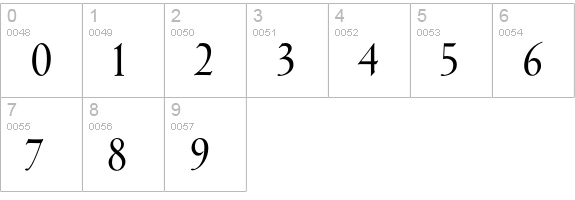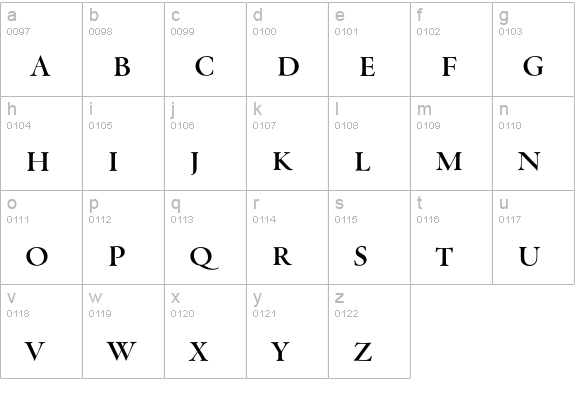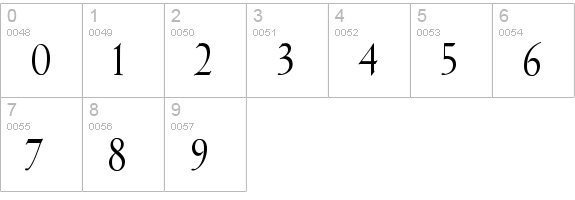
ThrohandInk-RomanExpert Font Details
Introducing ThrohandInk-RomanExpert, a truly unique and captivating font that will add a touch of elegance and sophistication to any design project. With its exquisite detailing and impeccable craftsmanship, this font exudes a sense of timeless beauty and grace. ThrohandInk-RomanExpert is the perfect choice for those seeking a classic yet contemporary font that effortlessly combines traditional Roman lettering with a modern twist. Its fluid strokes and gentle curves create a sense of movement, making each character come to life on the page. What sets ThrohandInk-RomanExpert apart from other fonts is its impeccable attention to detail. Every stroke is meticulously crafted, resulting in a font that is both visually stunning and highly readable. Whether used for headings, body text, or even logos, this font will make a lasting impression on anyone who encounters it. One of the most remarkable aspects of ThrohandInk-RomanExpert is that it is freely available to download at FontsMarket.com. This means that designers and creatives alike can enjoy the beauty and versatility of this font without any cost. It's a truly remarkable offer, as finding a font of this caliber for free is a rarity in the design world. So why wait? Enhance your design projects with the elegance and sophistication of ThrohandInk-RomanExpert. Download it now from FontsMarket.com and let your creativity soar to new heights. Whether you're working on a branding campaign, a wedding invitation, or a book cover, this font will elevate your work to perfection. Discover the beauty of ThrohandInk-RomanExpert today and unlock a world of endless design possibilities.